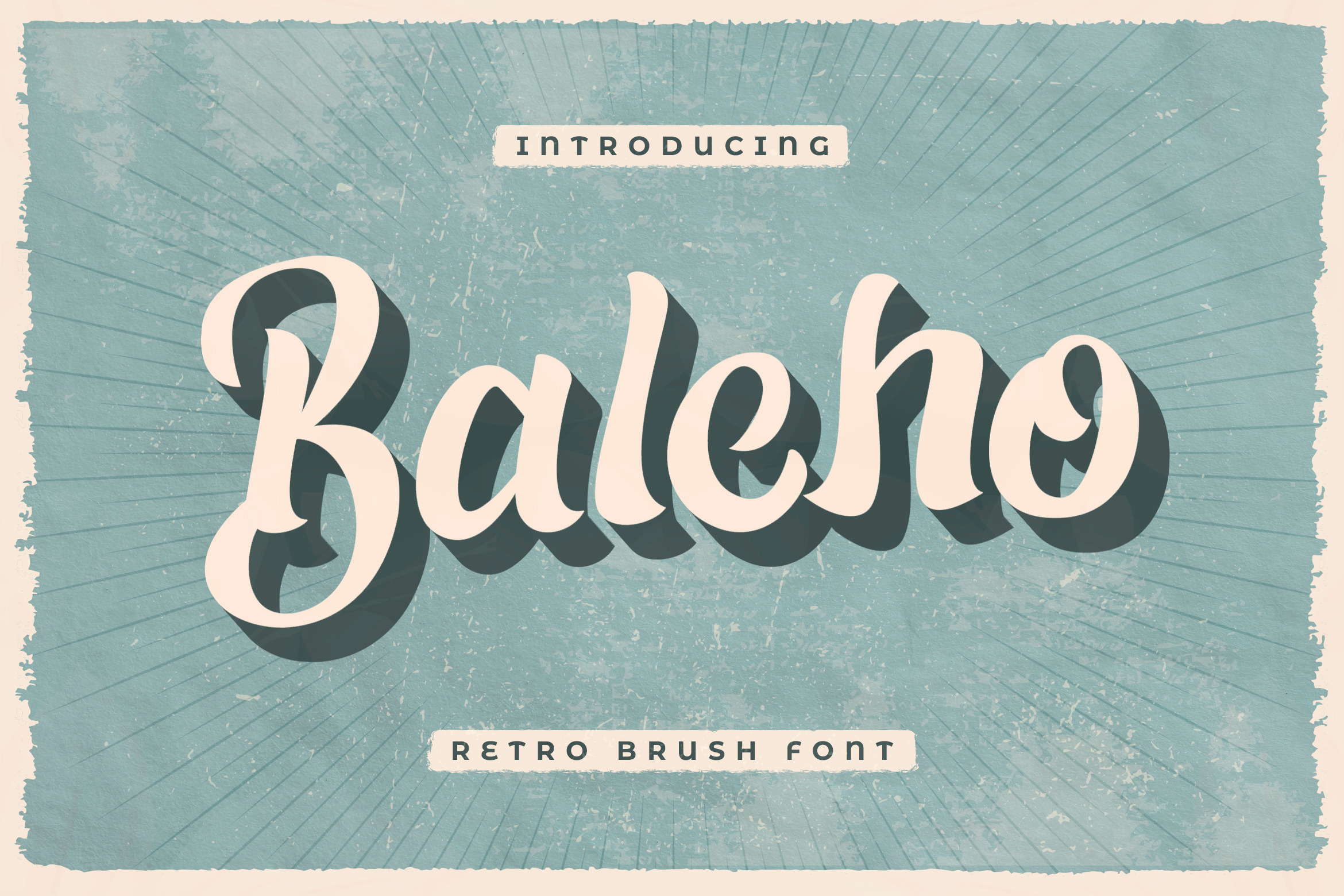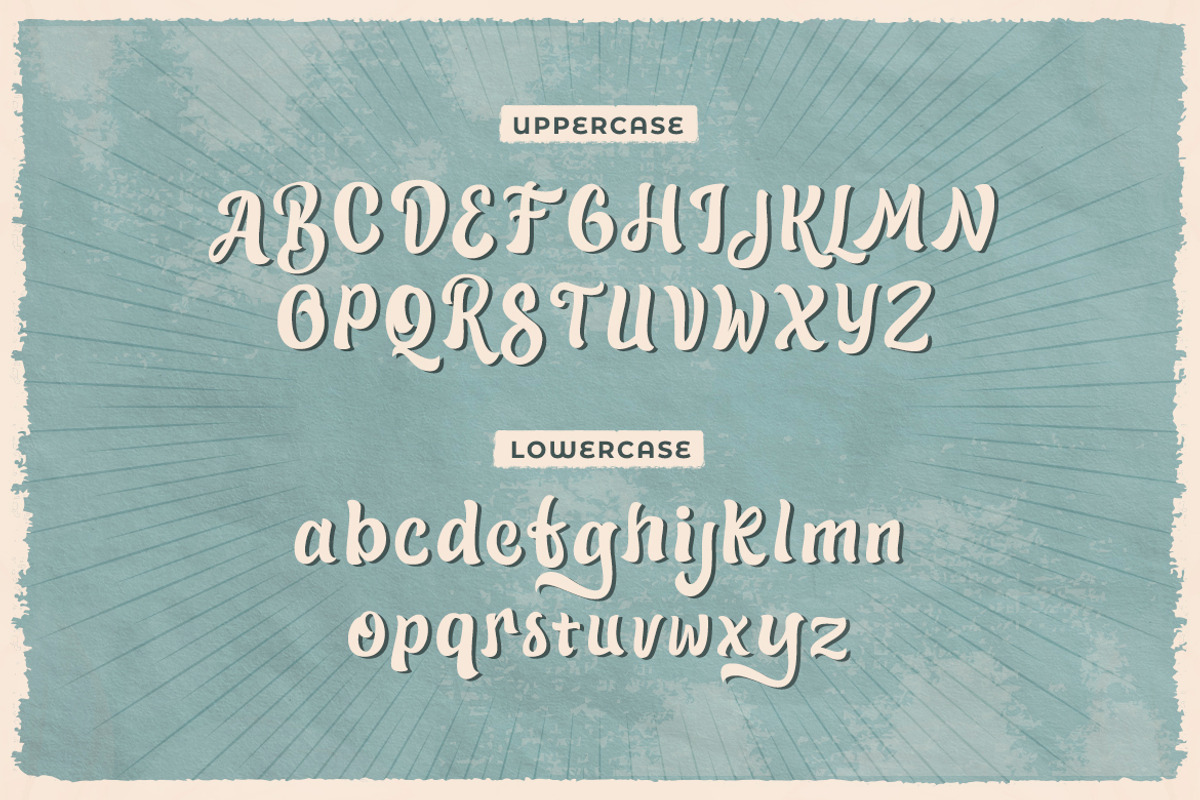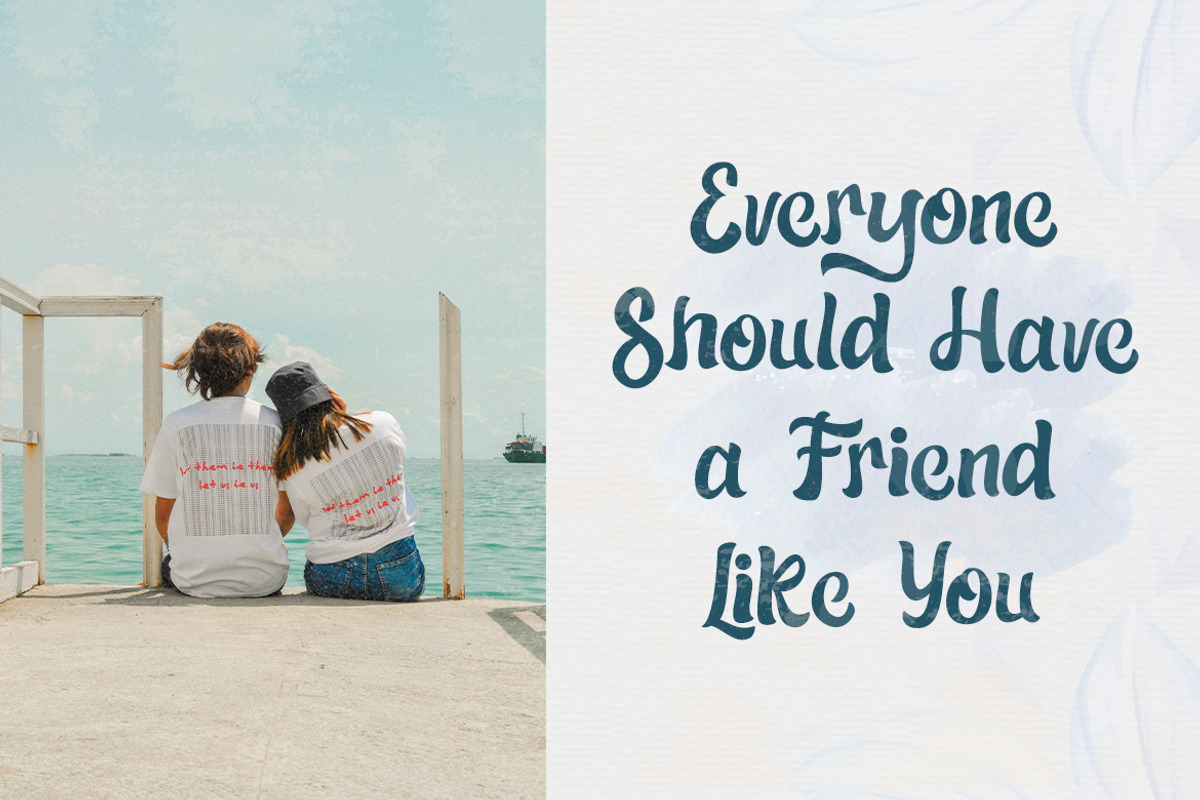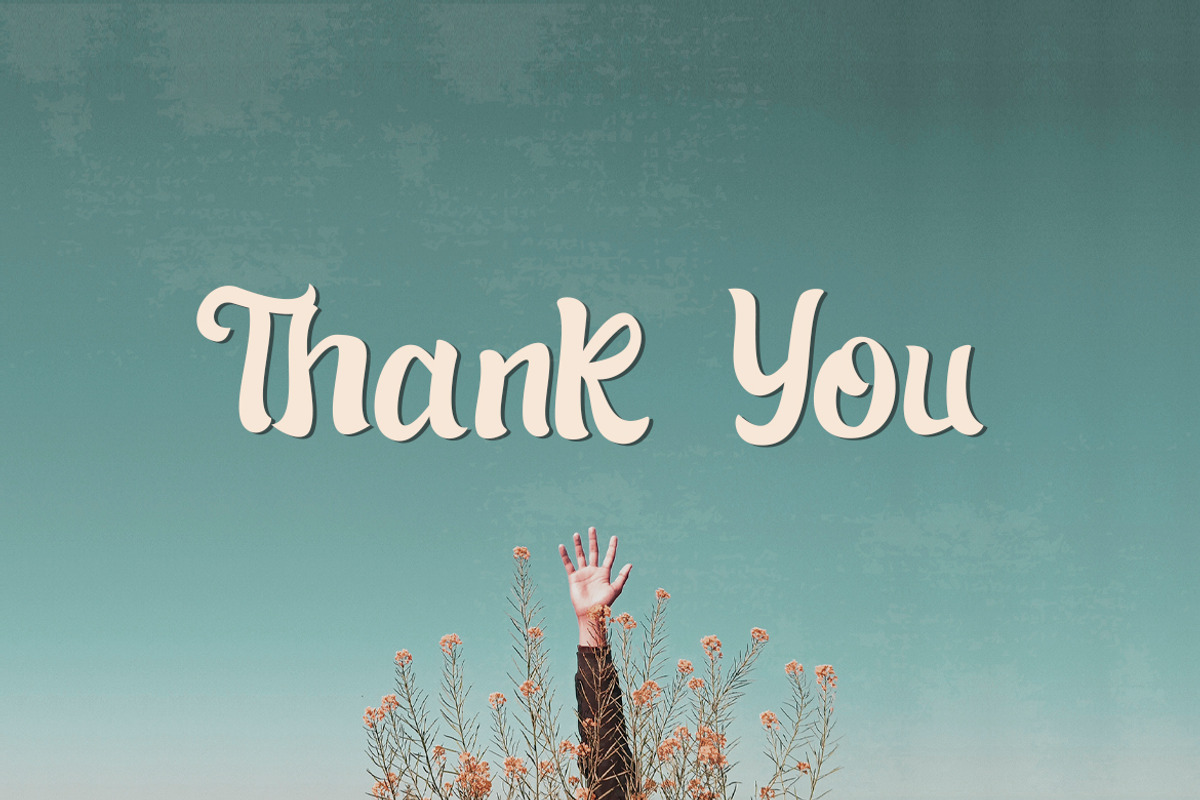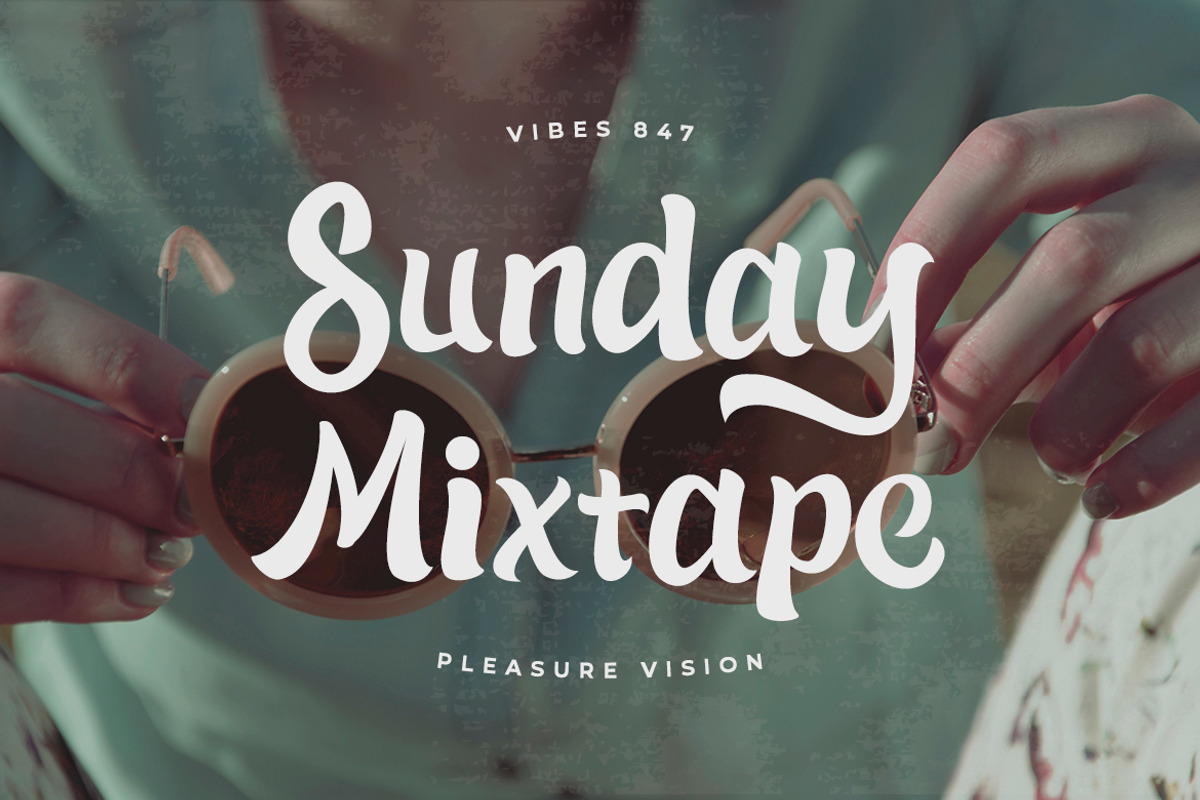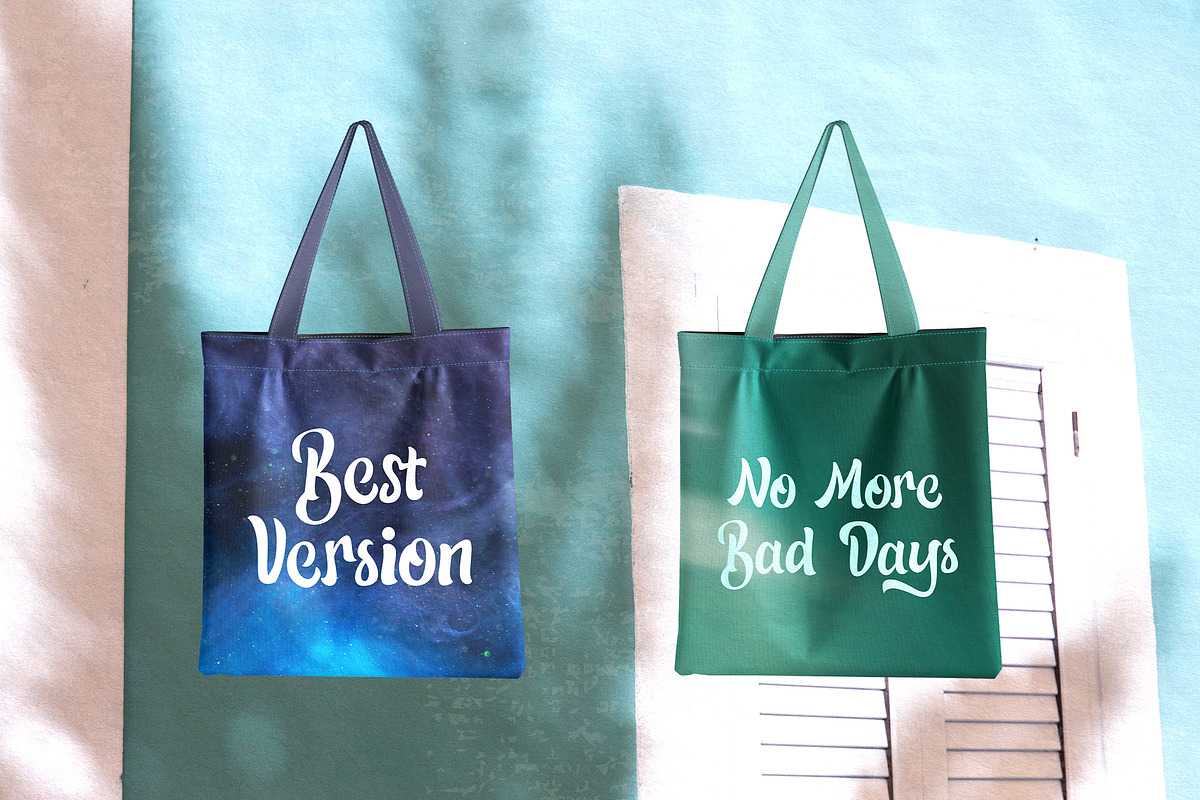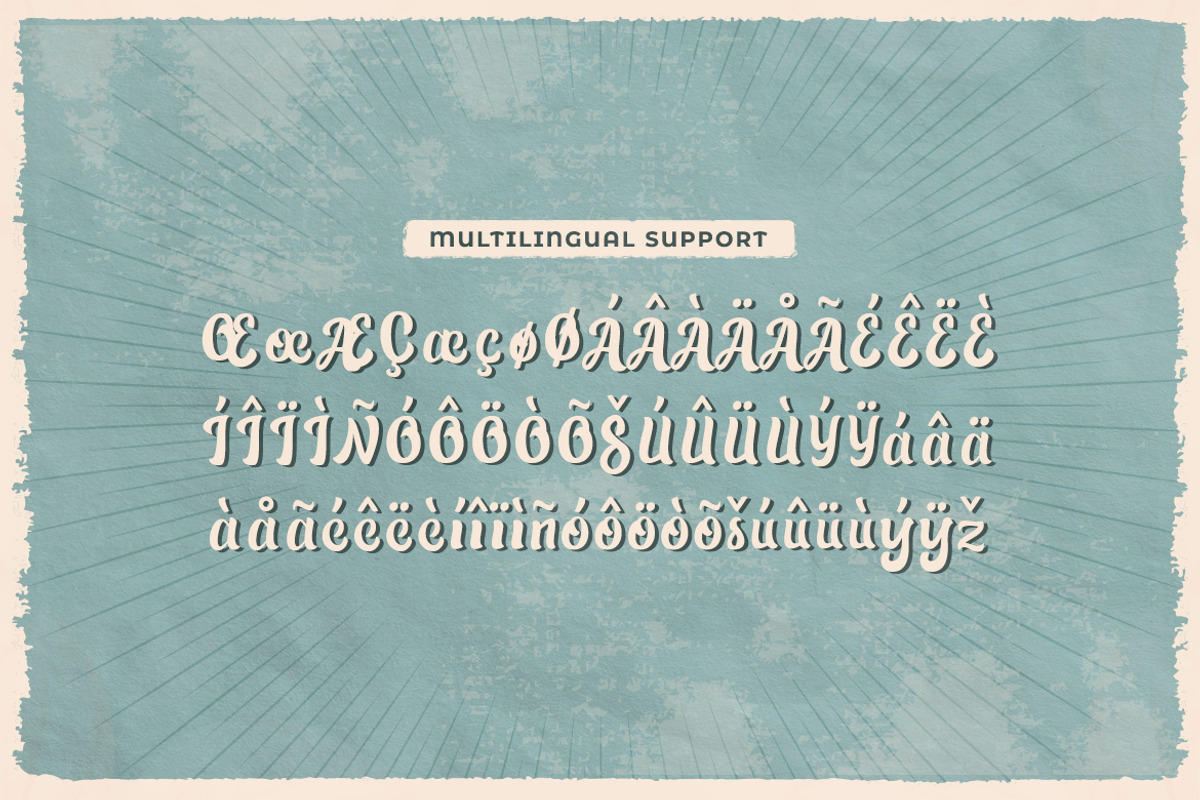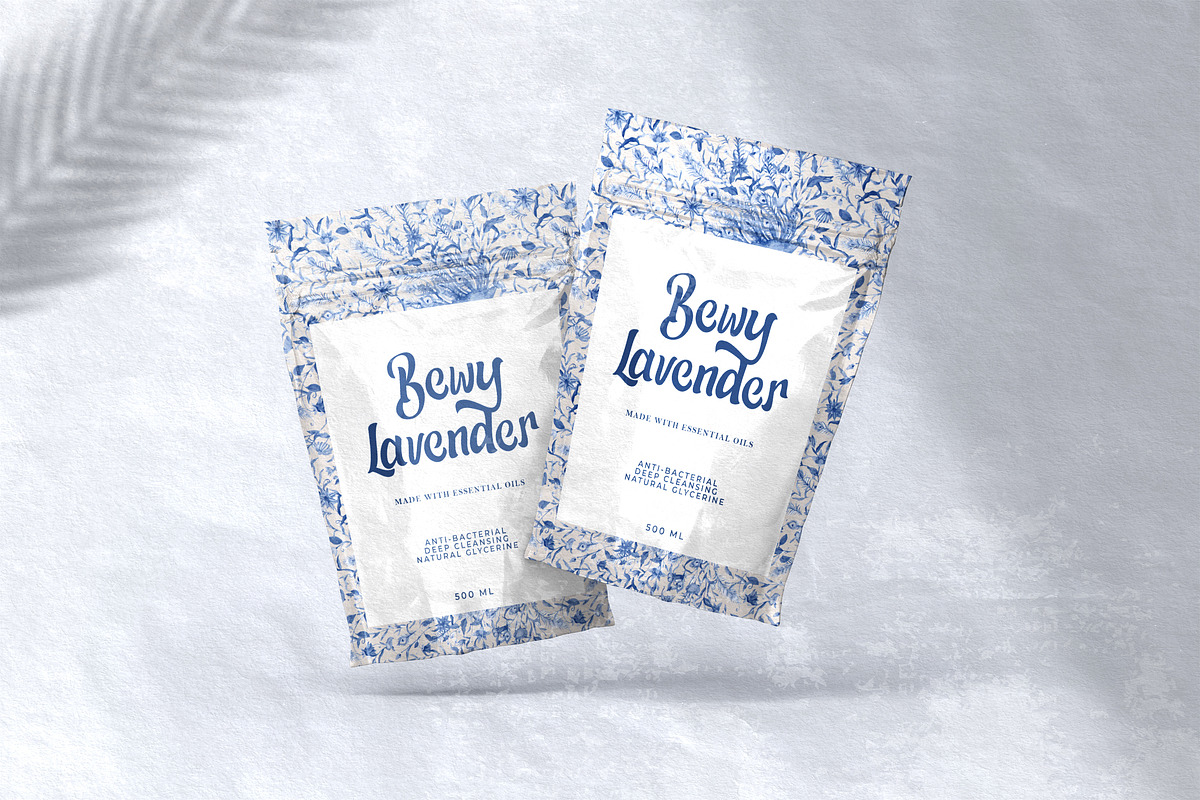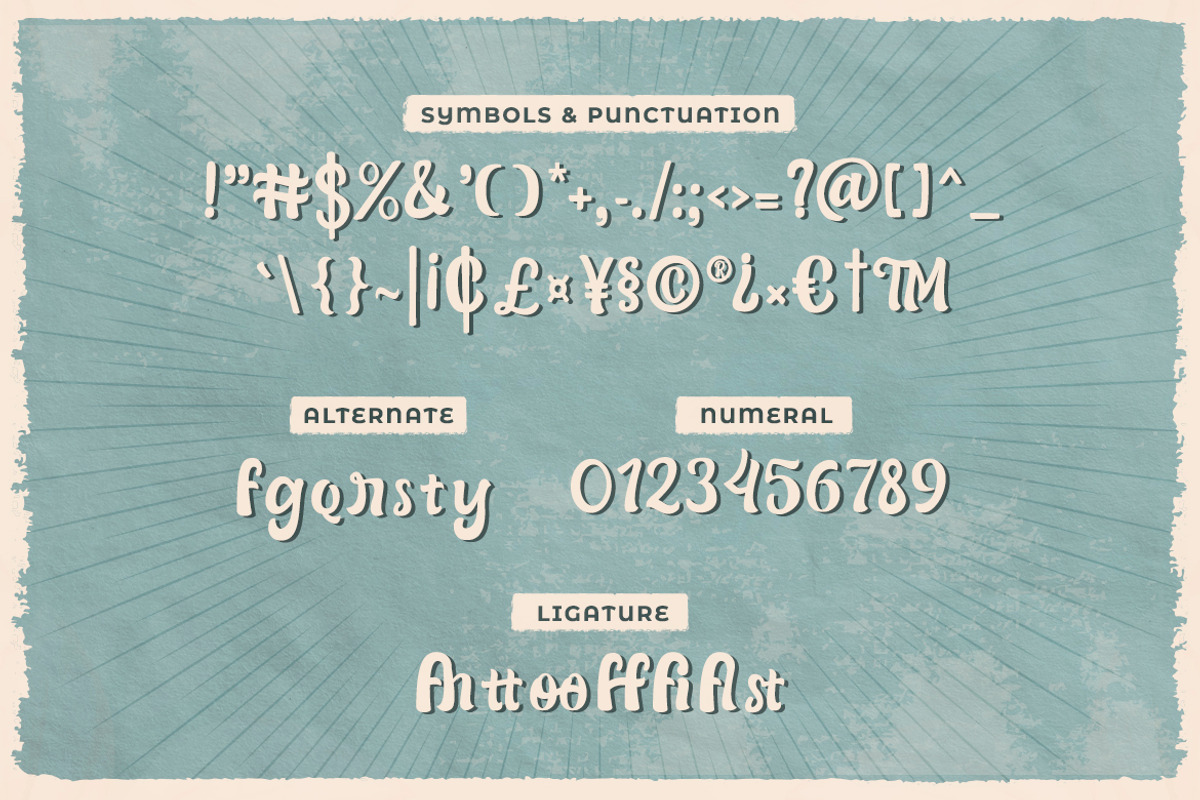
Baleho - Retro Brush Font
Introducing, Baleho. A retro brush font which will bring you back to 70s feel. Baleho feels playfully nostalgic and delivers an incredible vintage aesthetic. Use this display font to add that special retro touch to any design idea you can think of!
- Symbols & Punctuation
- Numeral